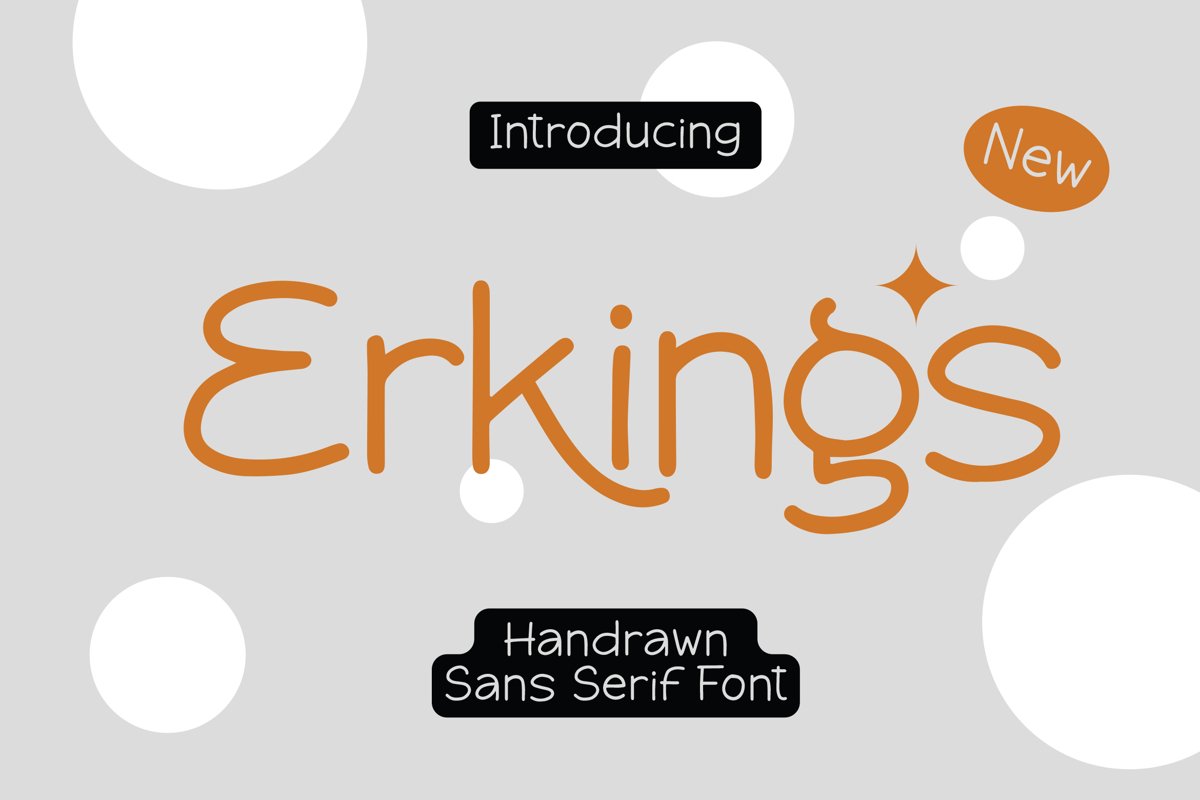
Erkings - Sans Serif Font that contain lowercase, uppercase, symbol, and also support multi language. There’s a lot ligatures in this font. This Font also comes with ligatures, alternates and many more. this font suitable for fashion, branding, catalog and other design what you want.
Erkings